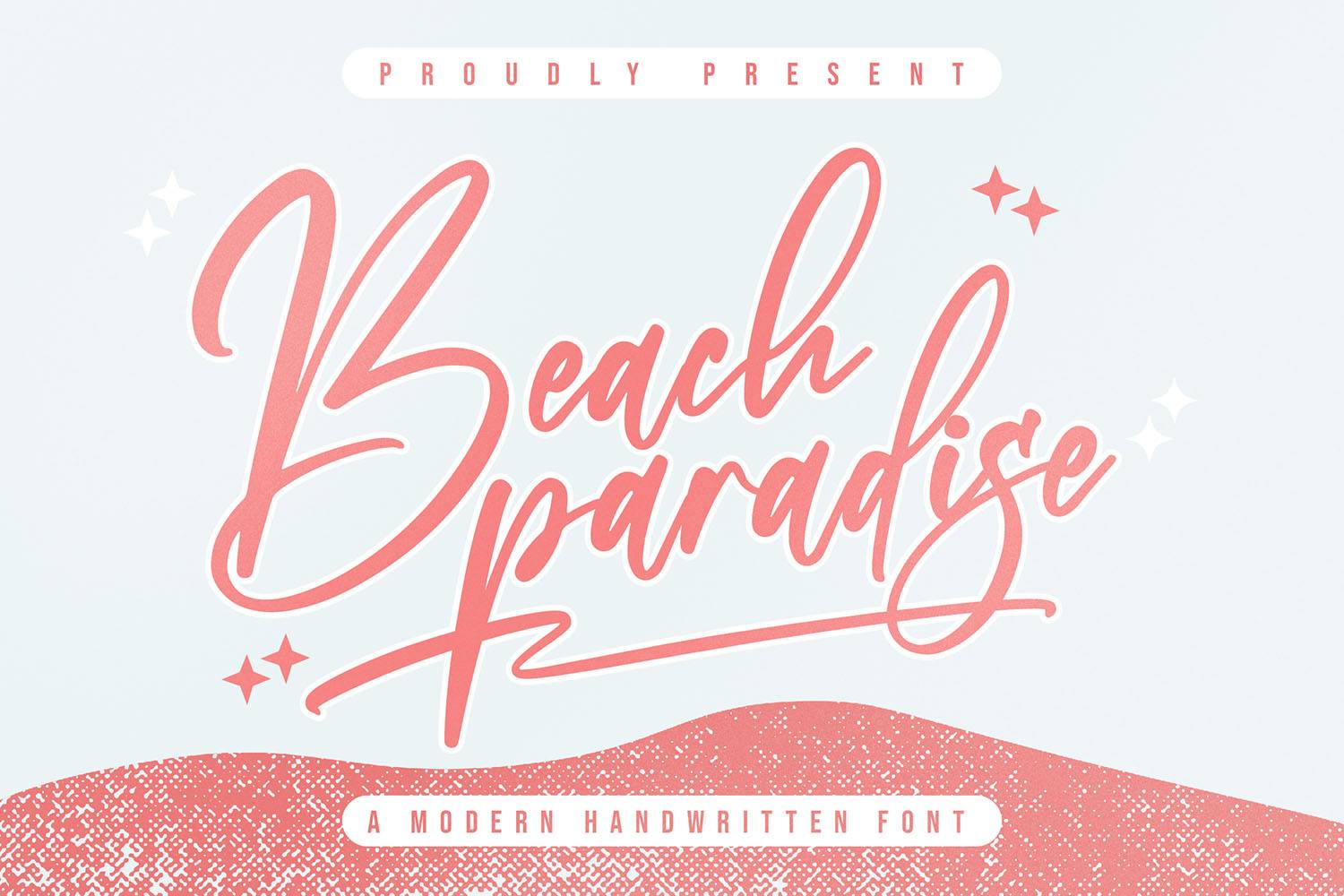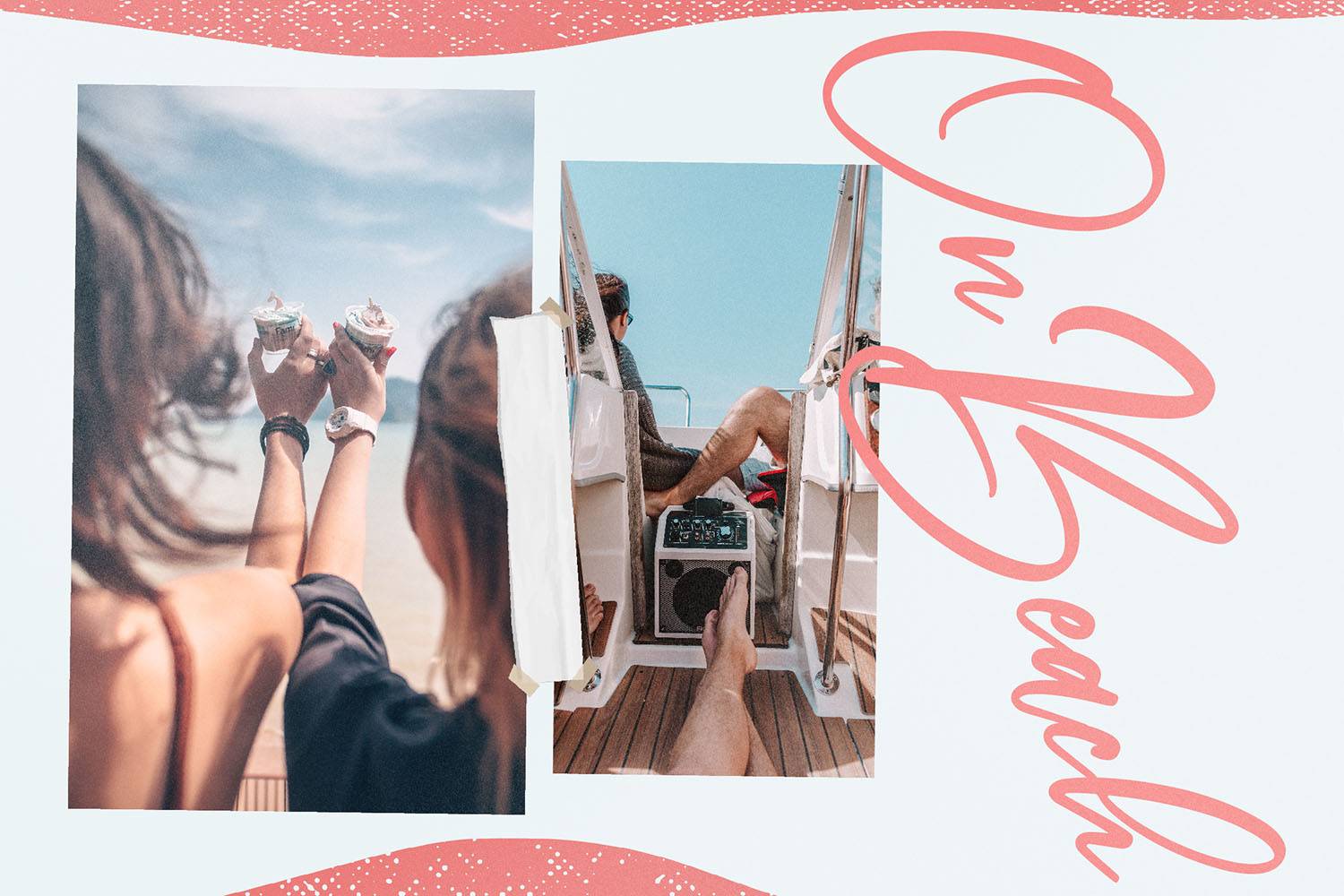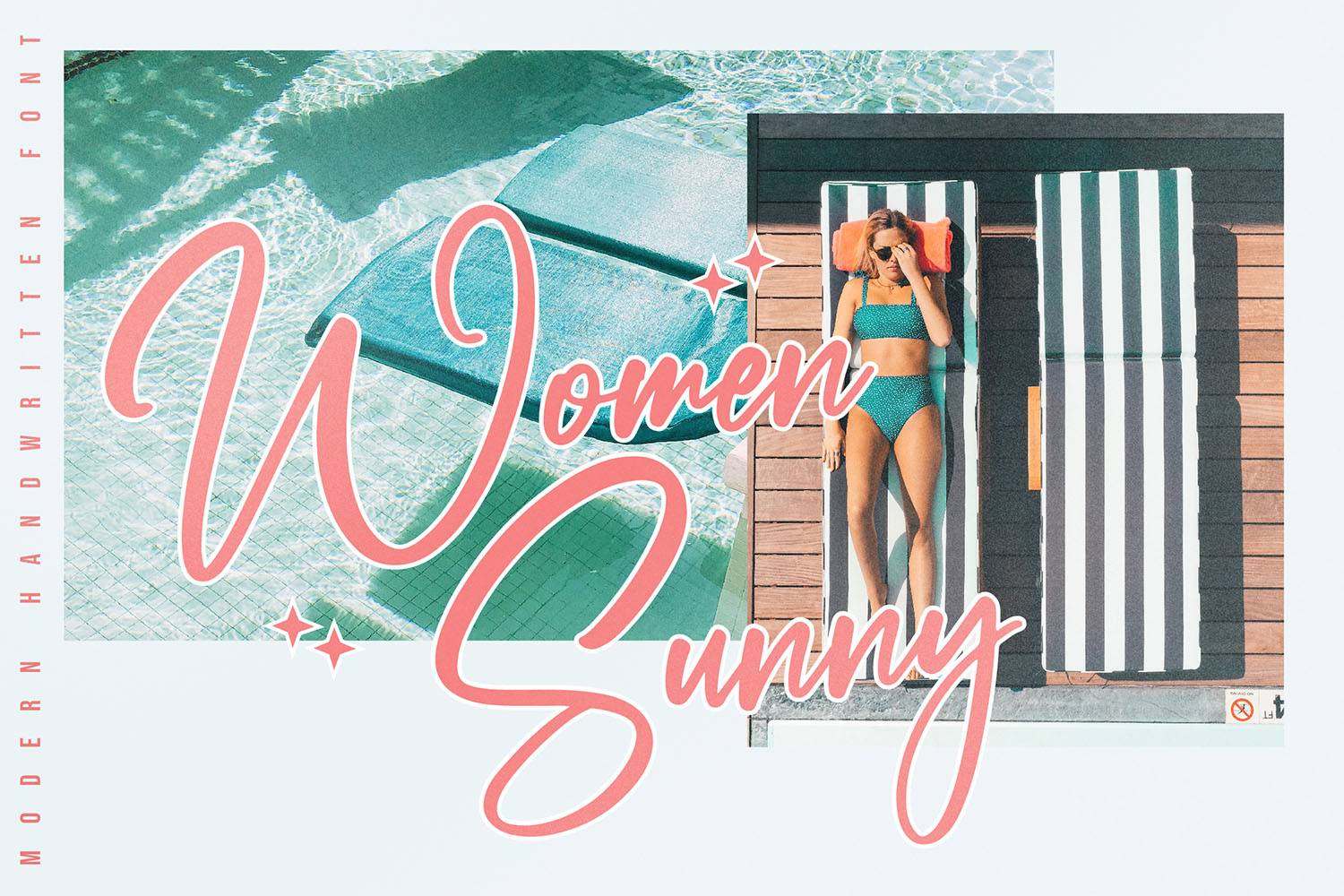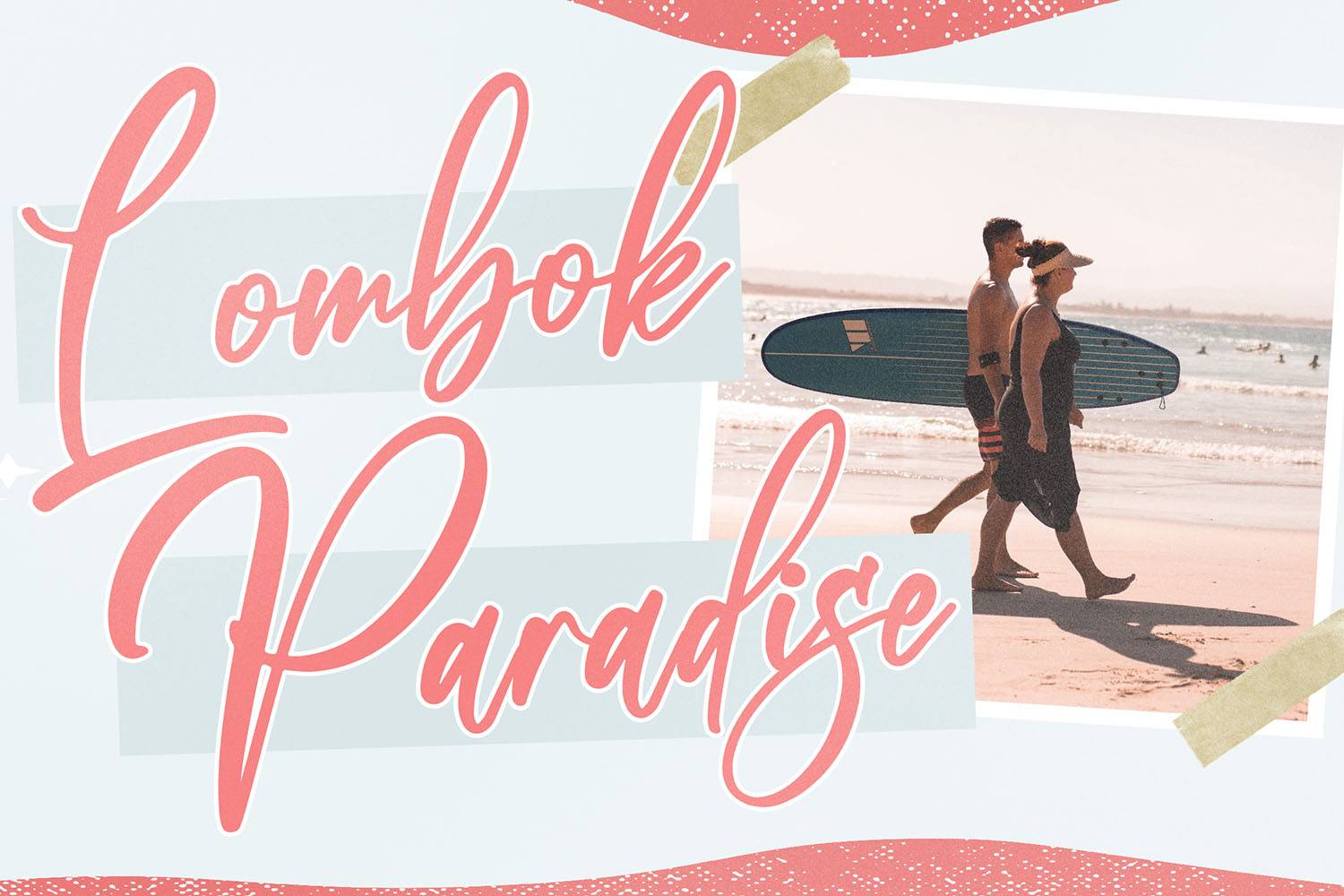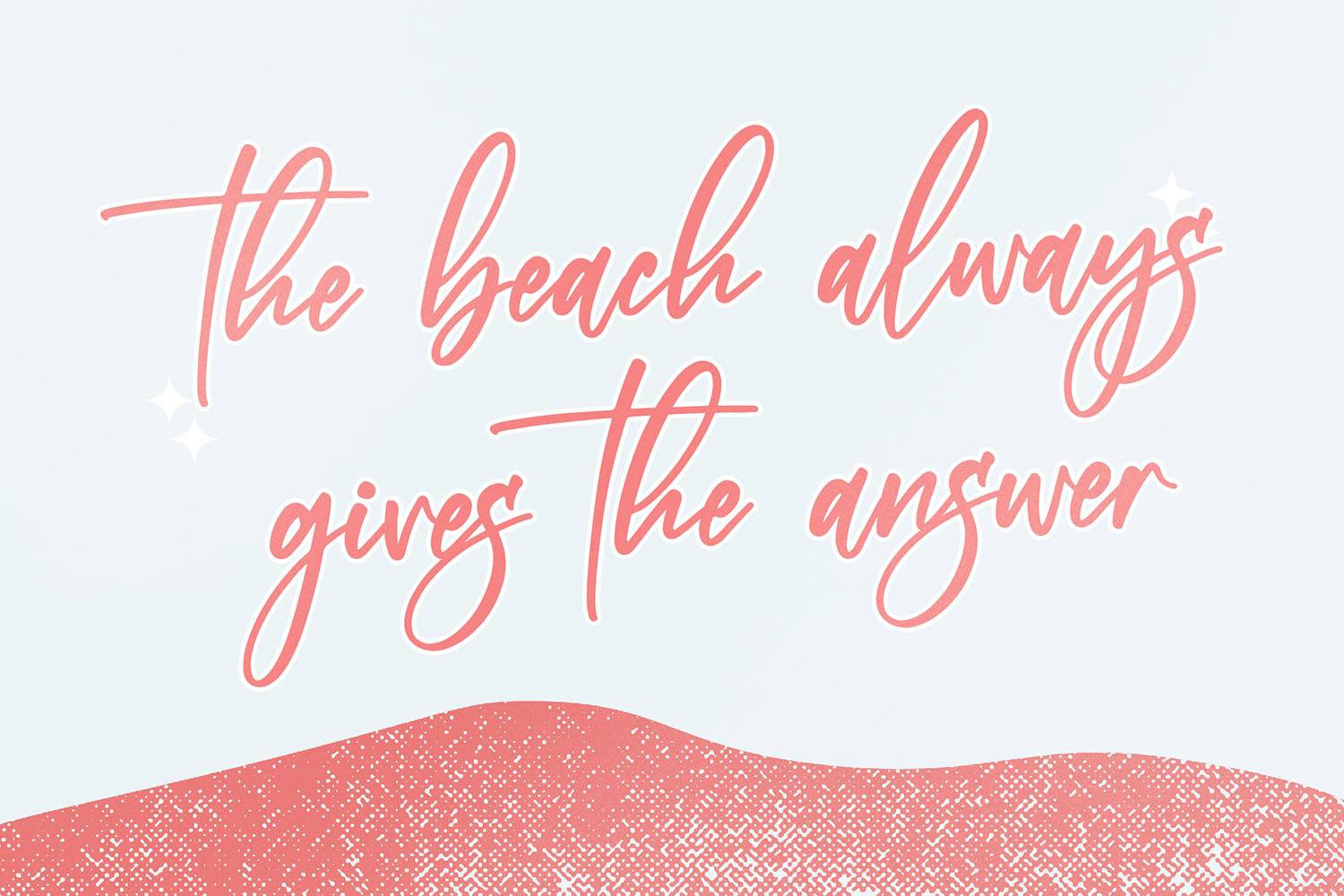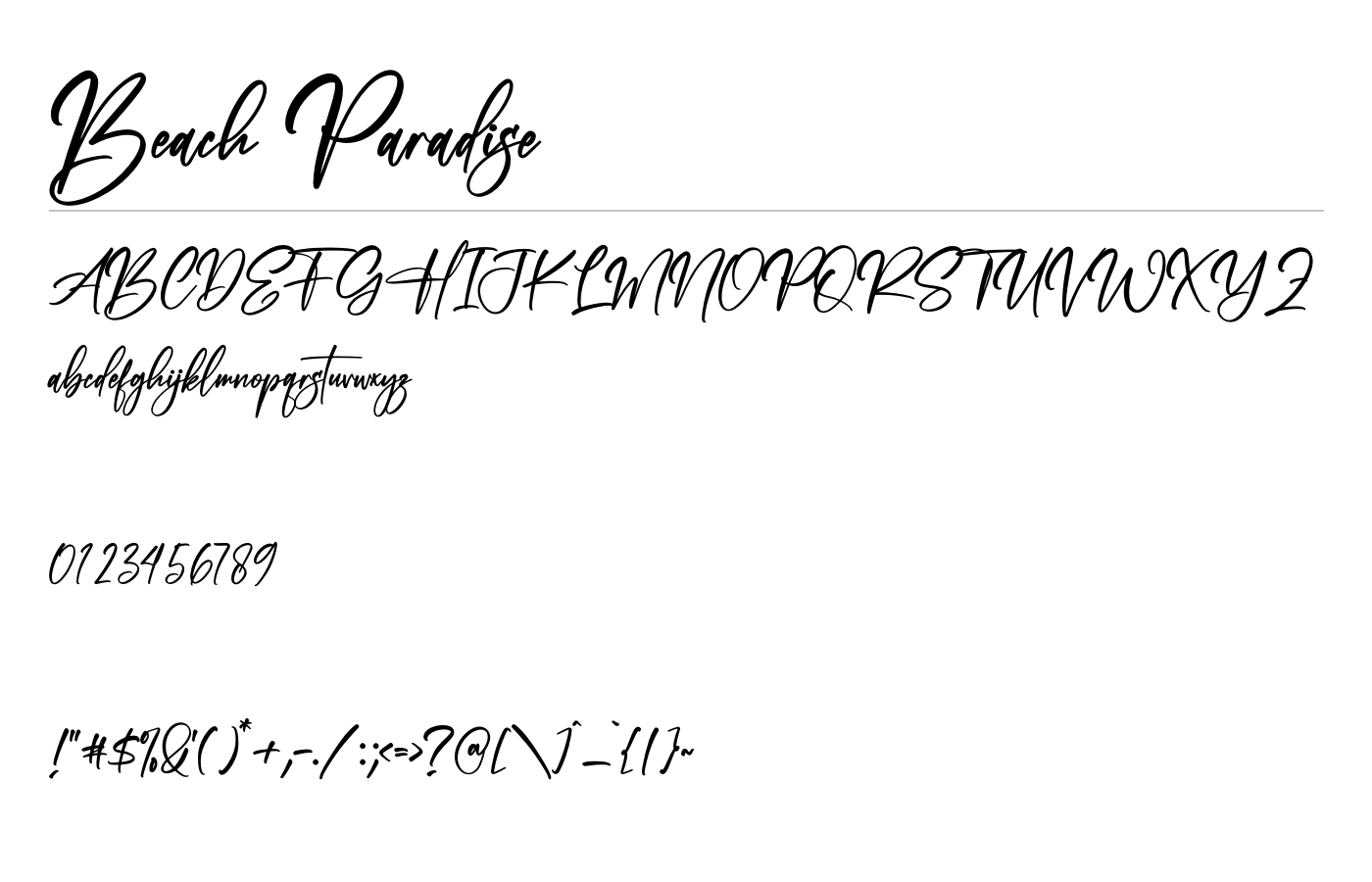
Beach Paradise is a stylish script font with fluid, handwritten strokes that convey a relaxed yet elegant vibe. Its thin to medium stroke weight and graceful letterforms make it perfect for creating a friendly and inviting atmosphere, ideal for lifestyle branding, invitations, and casual logos. This font works well where a modern, personal touch is desired, especially in creative and leisure contexts.
Beach Paradise Font
About Beach Paradise Font